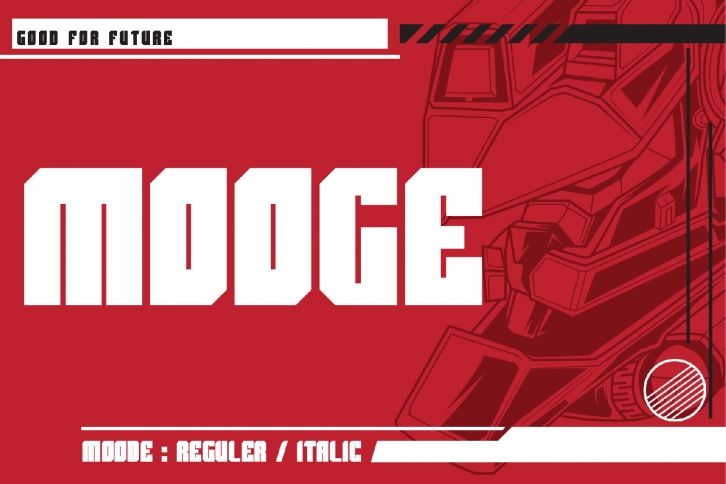
MOOGE is a trendy and unique font with an authentic style. It was designed by hamzvf and it's a great choice for creative people who need such a font. It was released on February 28, 2020 and the file size is 11.22 MB. MOOGE will add an organic vibe to any design idea!